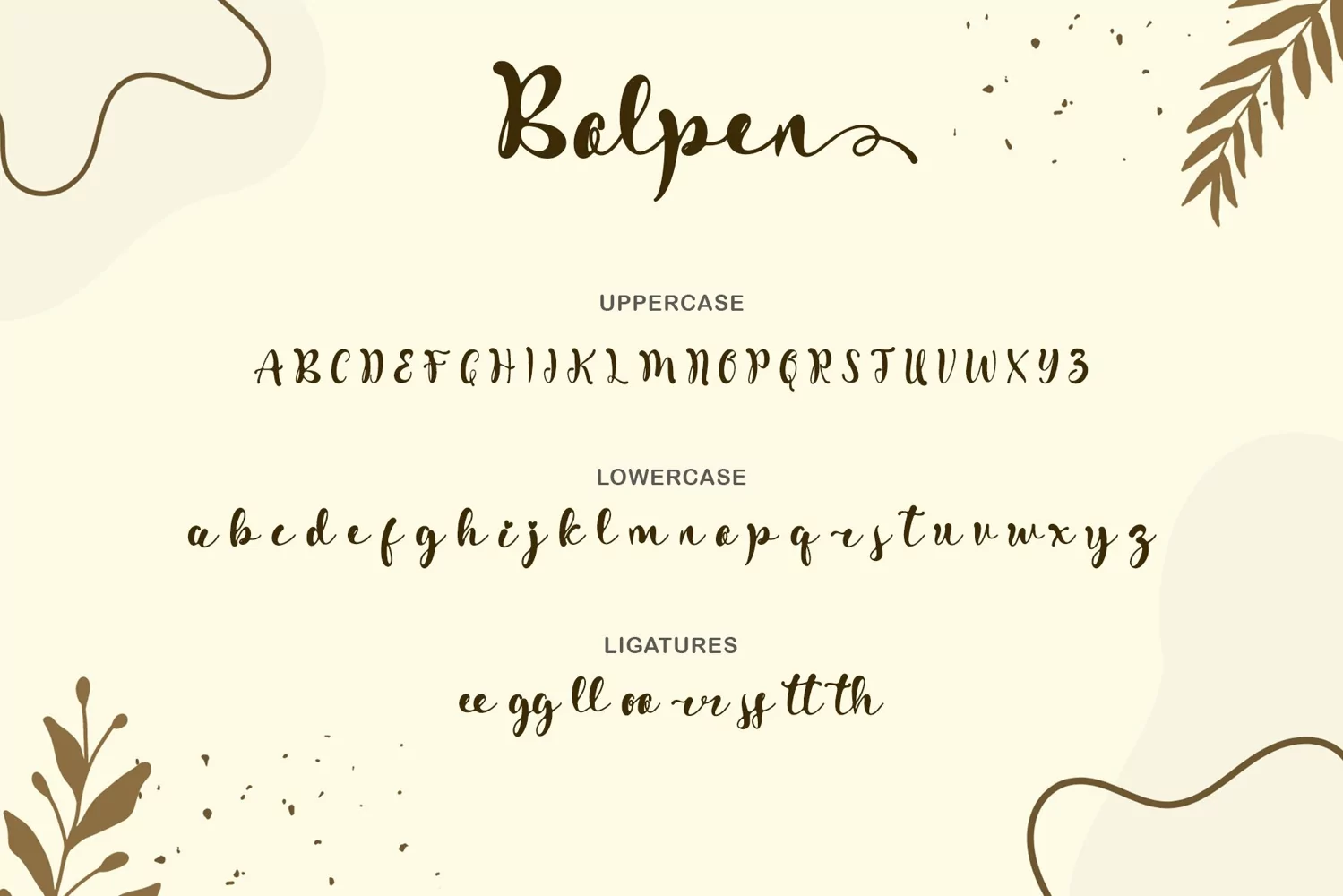
"Bolpen" is a unique and simple handwritten font. This font is equipped with uppercase, lowercase, ligature, swash, titling, numerals, punctuations, and multilingual support. Very suitable for weddings, posters, stickers, photography, congratulations, invitation cards and more.